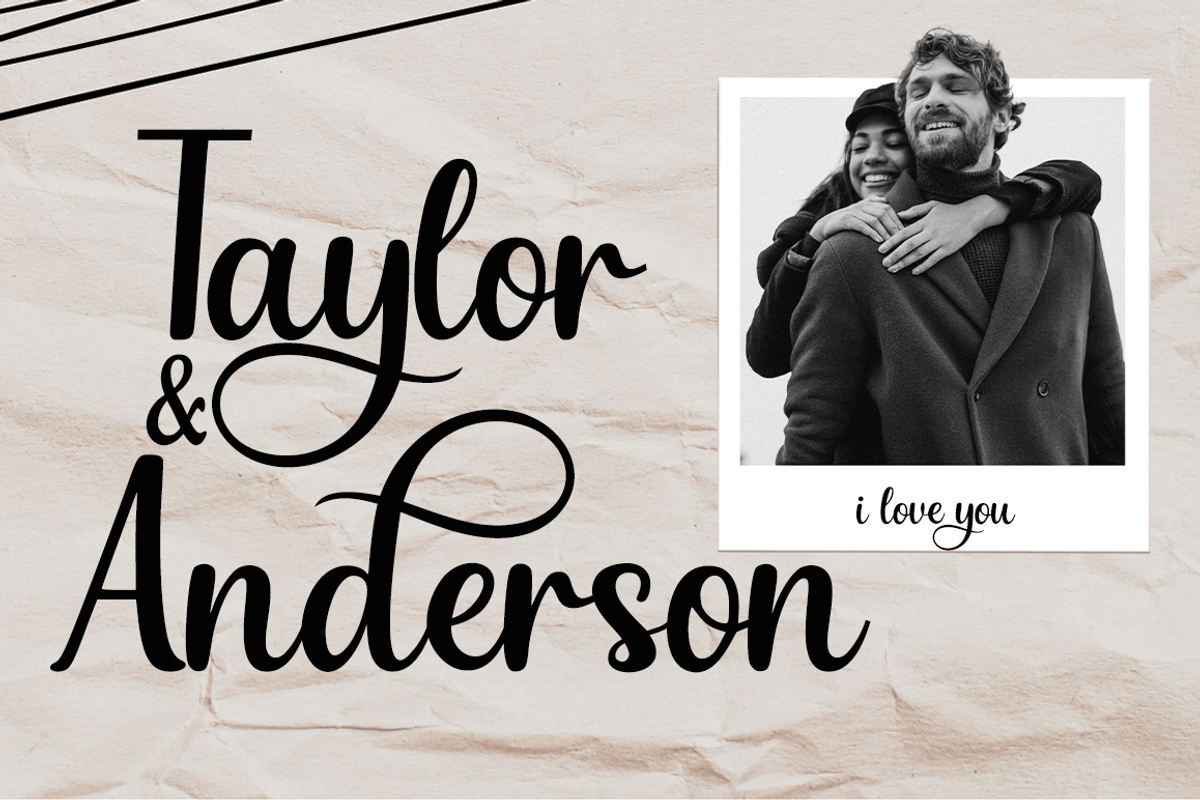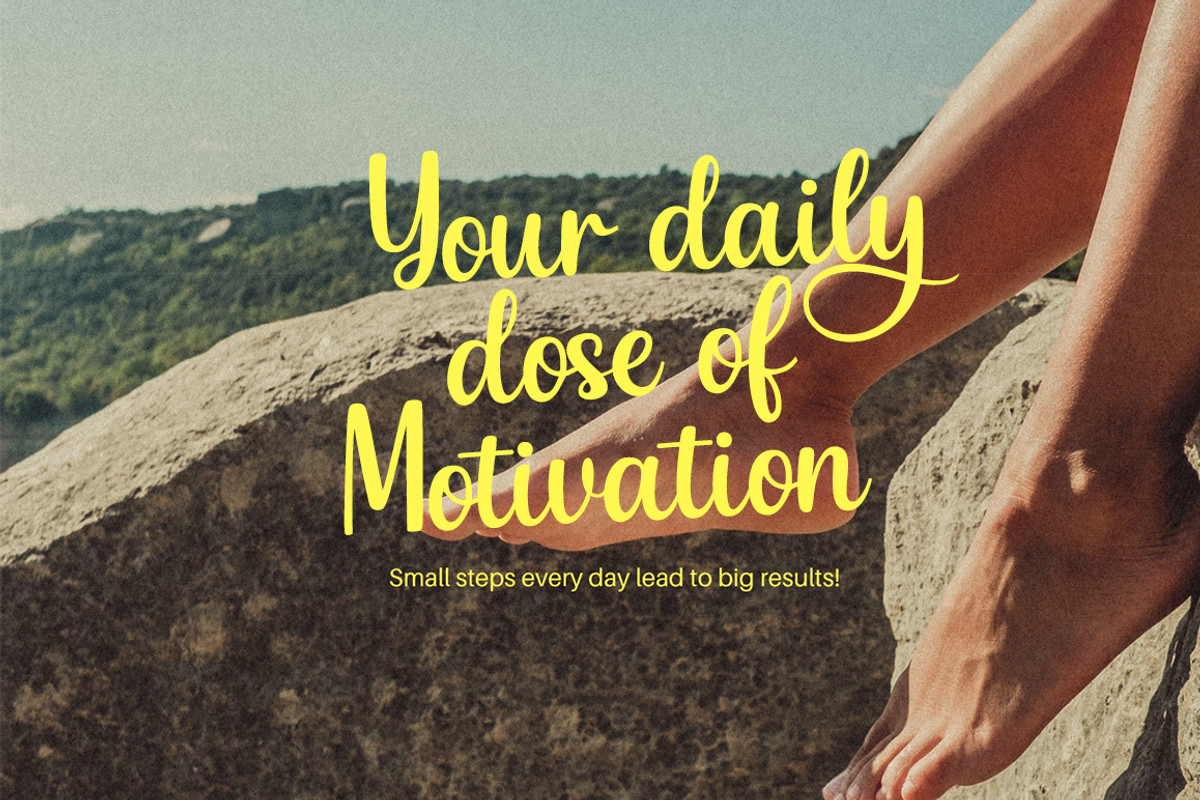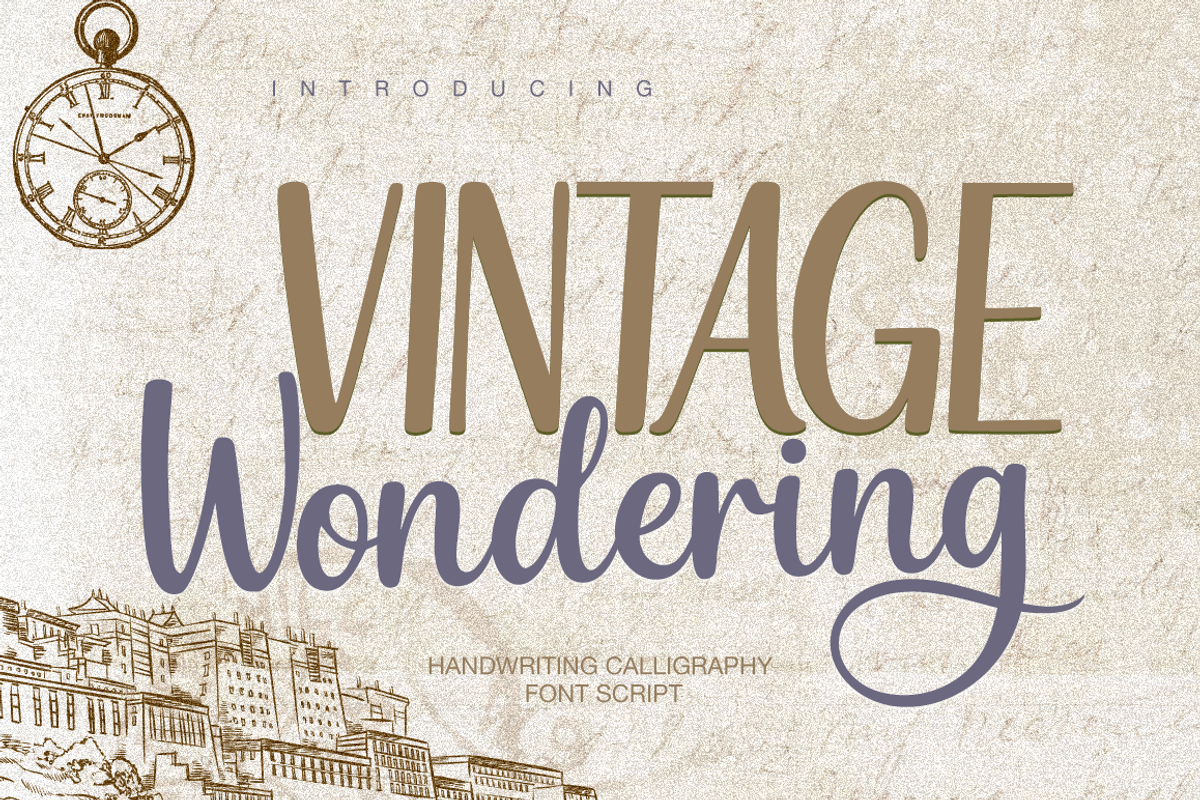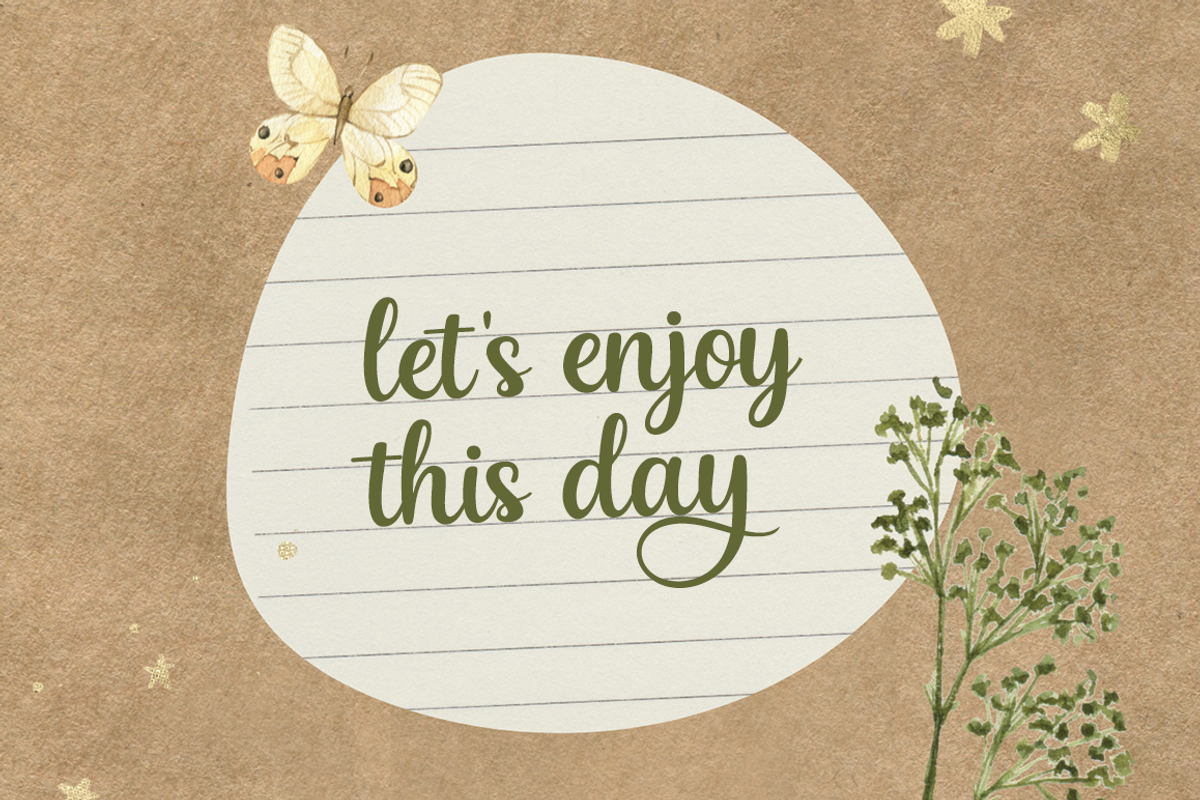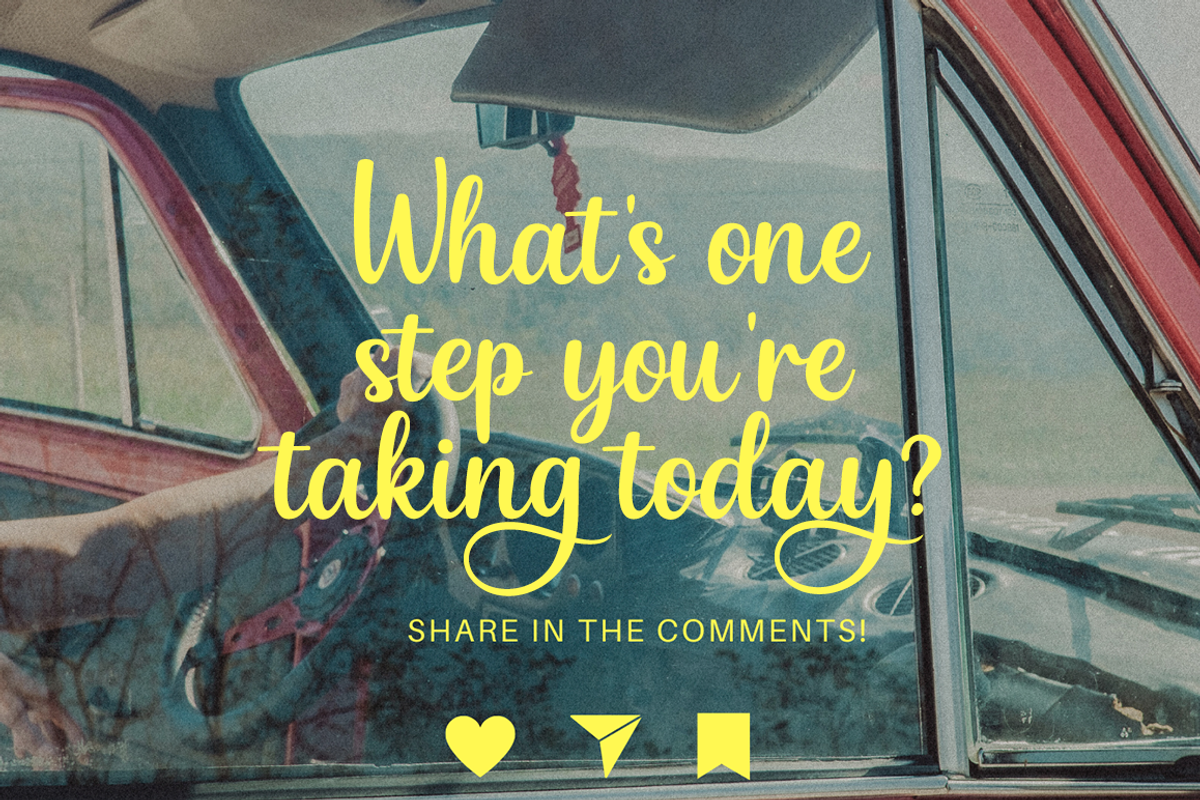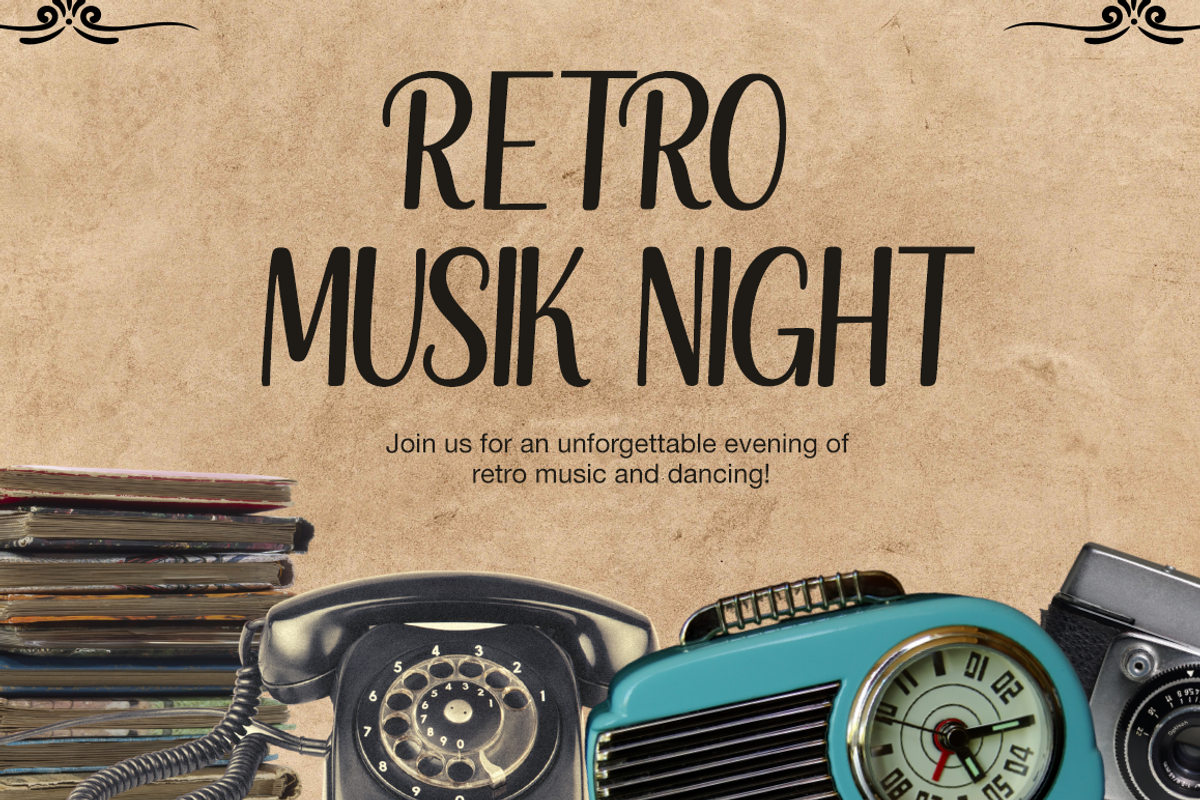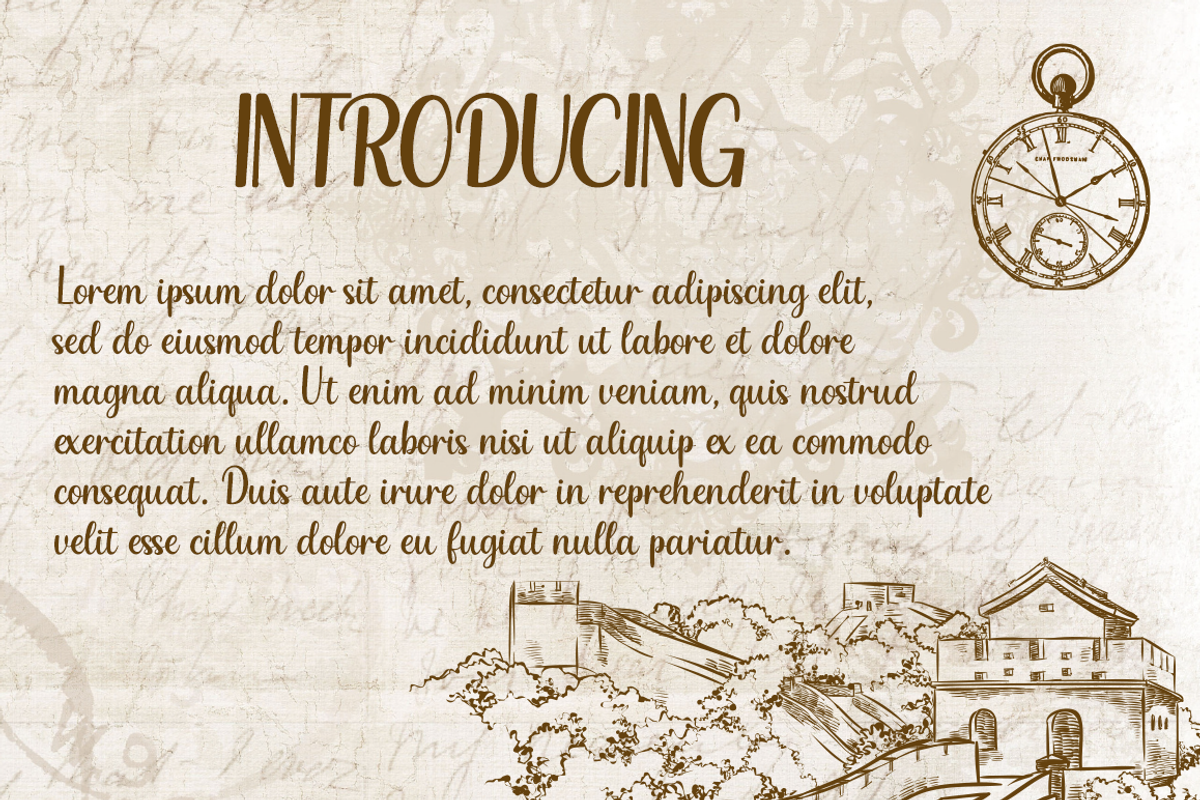
Vintage Wondering
Vintage Wondering is an elegant handwritten script font that blends classic vintage aesthetics with the fluid grace of modern calligraphy. Featuring smooth curves and a soft retro touch, this typeface is designed to bring charm and sophistication to a wide range of design projects.